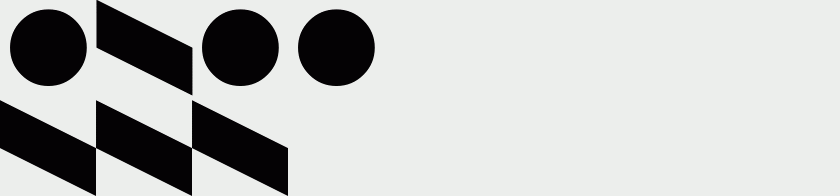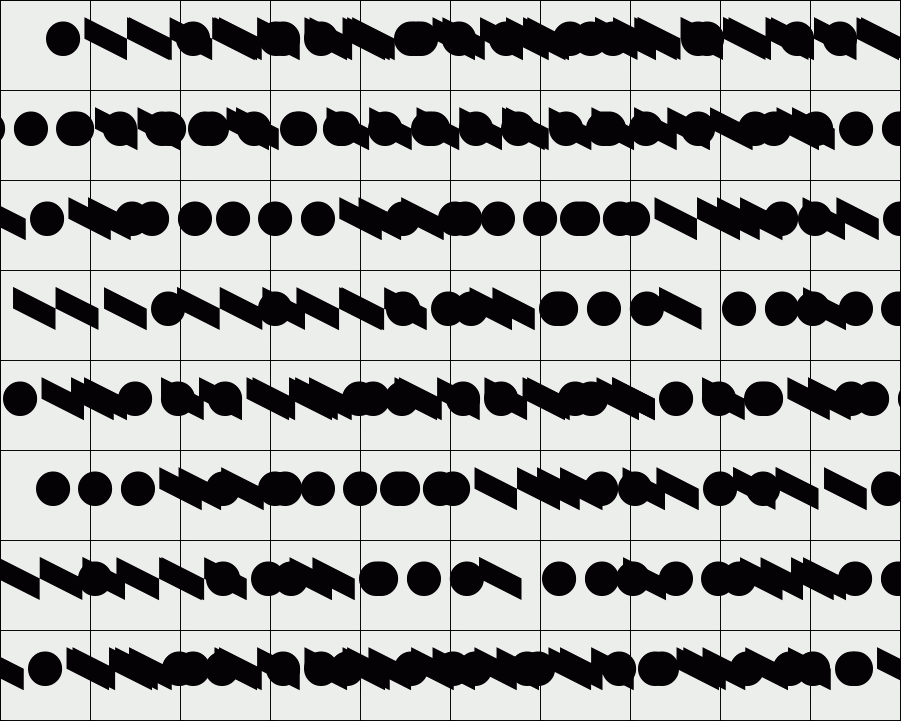
International Morse
/ Morse International
This is a cheap font that allows what you type to instantly be turned into morse code.
Designer: Brettorn Noa Johasnesen